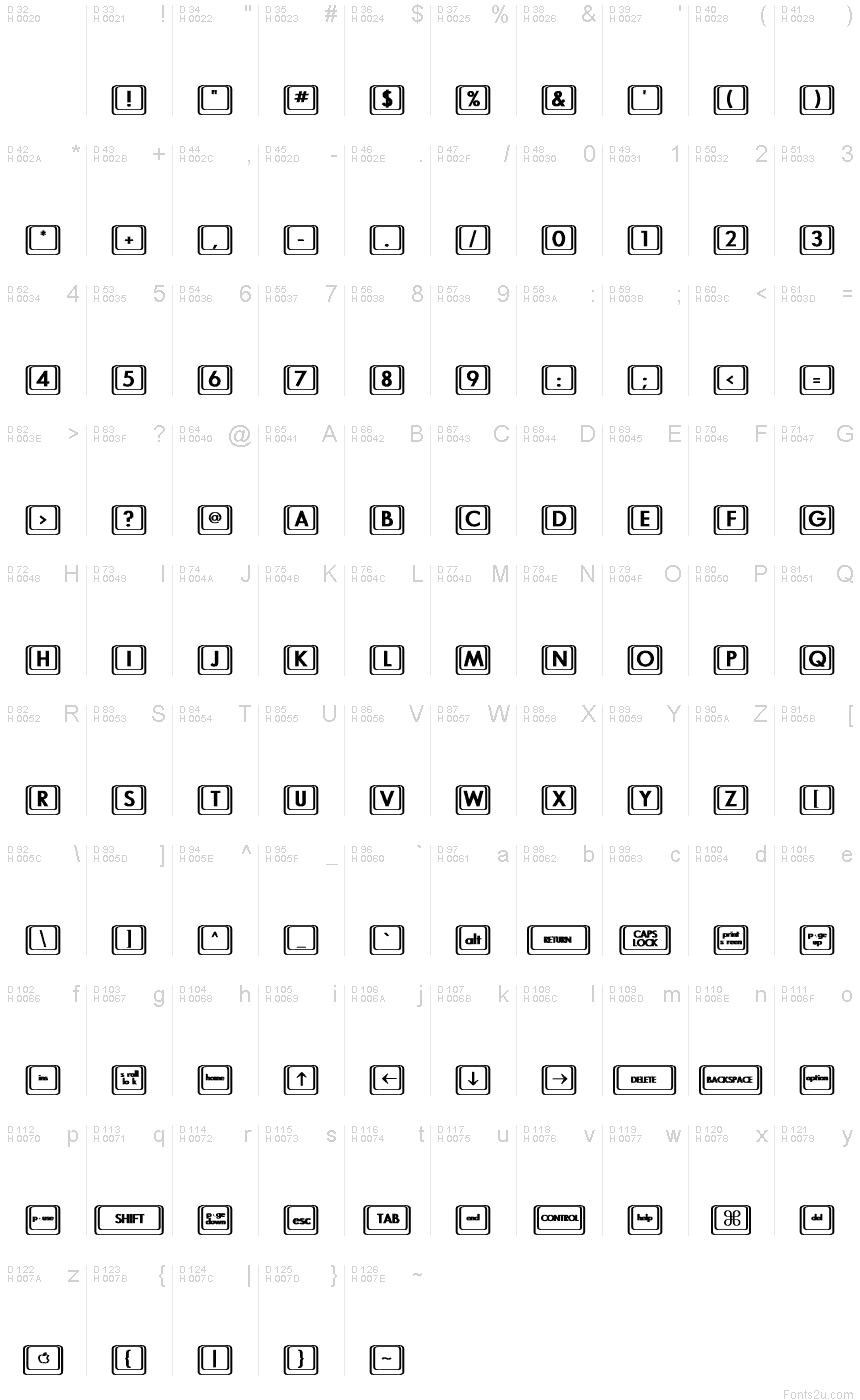
Keyboard KeysBT Bold
Keyboard Keys BT Bold font by Alltype is a free decorative display typeface that turns every character into a chunky, clicky keycap. Each glyph sits inside a rounded rectangle with stacked outlines, like a close-up of an old-school keyboard, with inky black borders hugging bright, open counters. The look is bold, tactile, and instantly readable, giving digital interfaces and tech visuals a playful, tactile edge straight out of the hardware itself.
Using Keyboard Keys BT Bold, you can label shortcuts in software tutorials, mock up control panels, design retro-computing posters, create gaming overlays, build infographics, or add quirky “button” badges to stickers and tees. This free font shines when you keep it large so the layered key shapes stay crisp; pair it with a clean geometric sans for body copy and let Keyboard KeysBT Bold handle all the commands, labels, and standout moments.